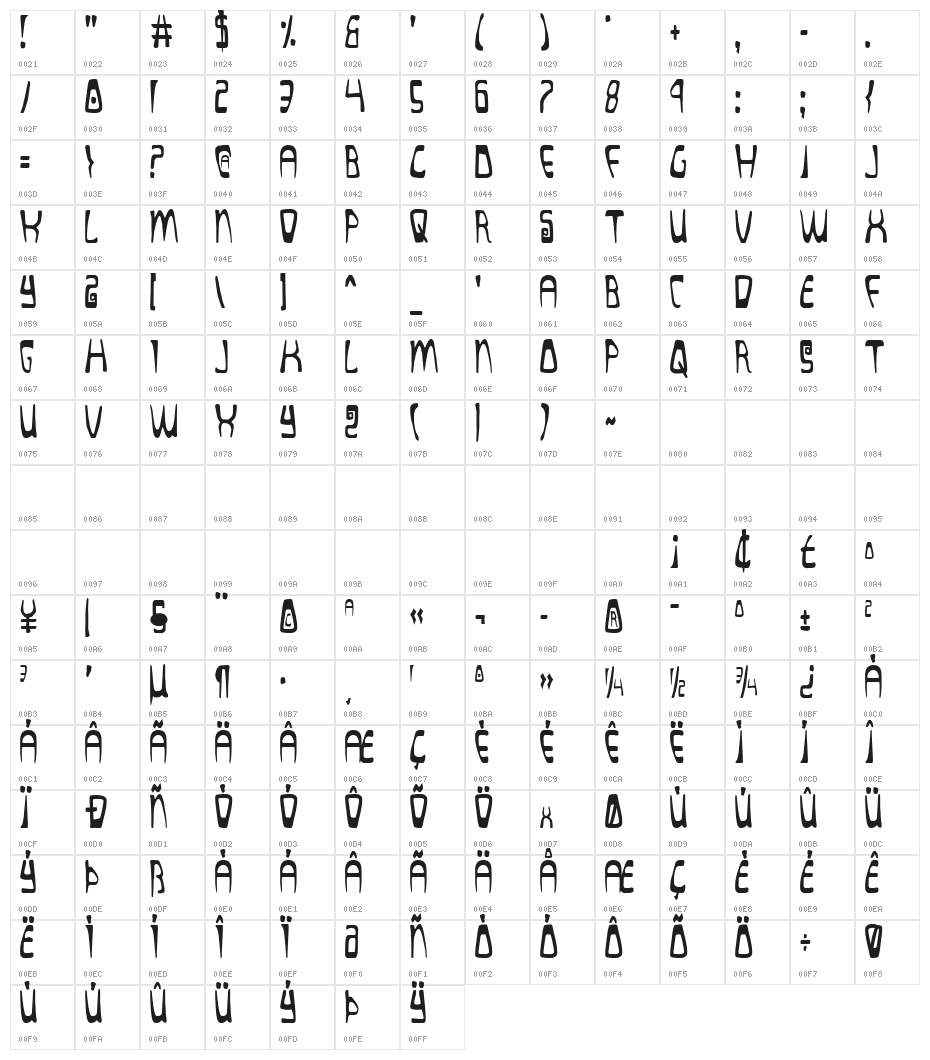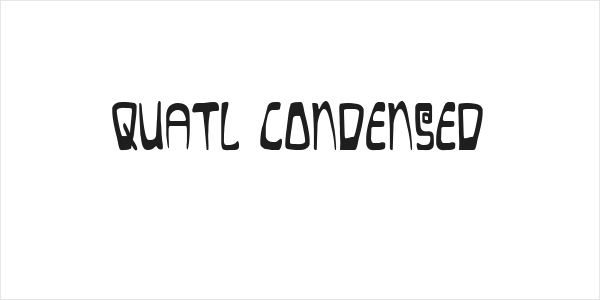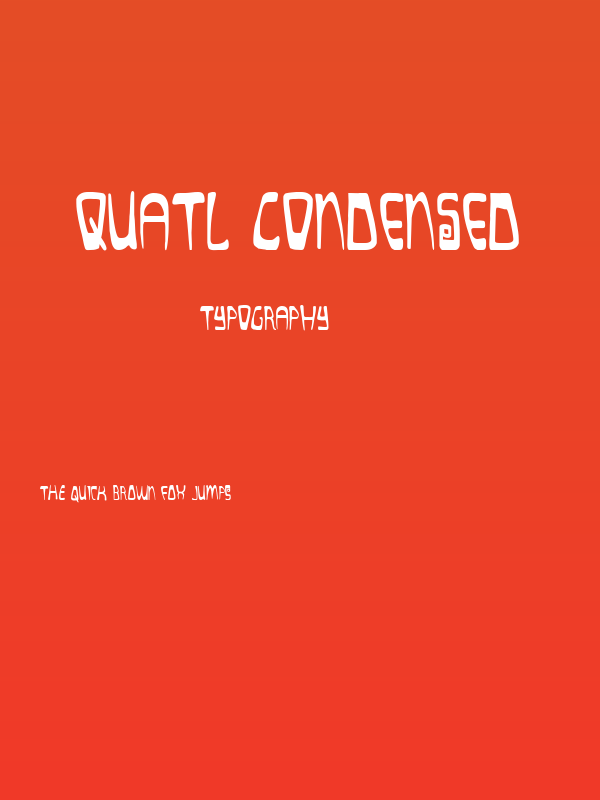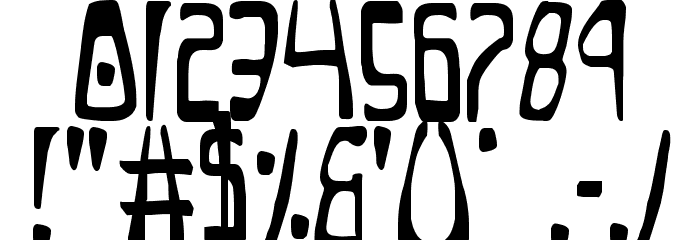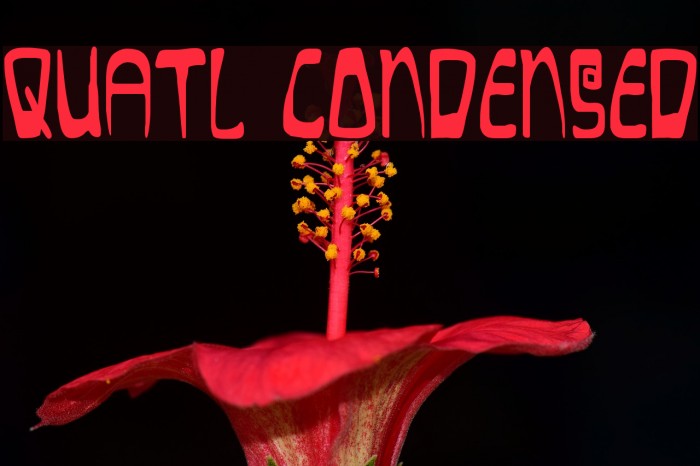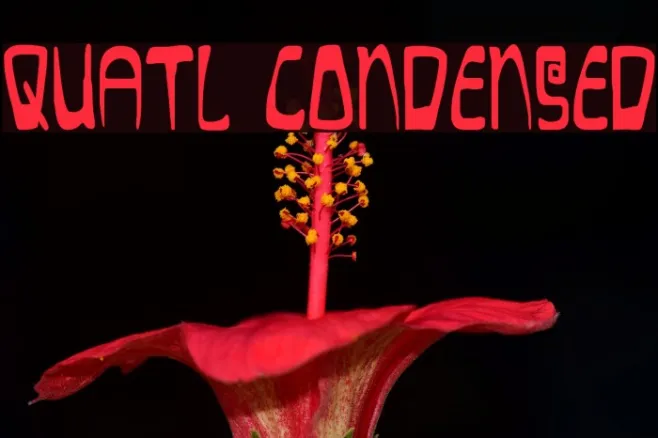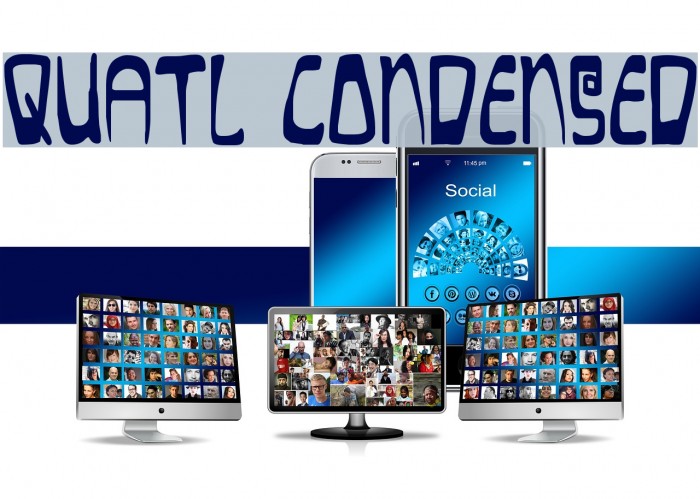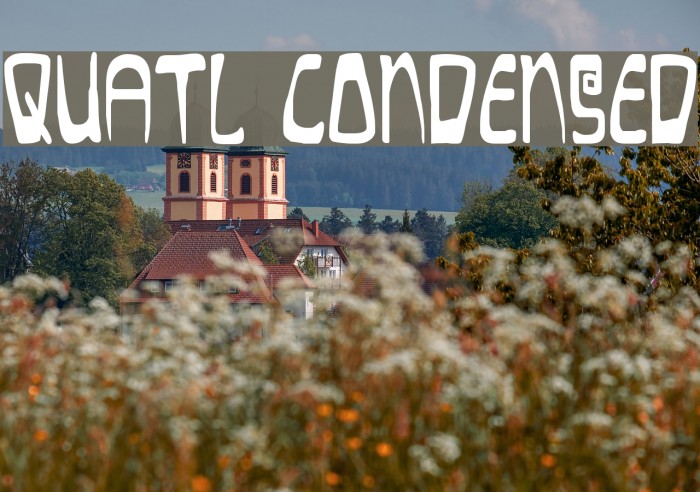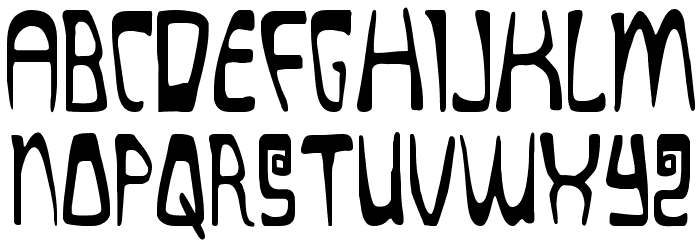
Quatl Condensed Font
Quatl Condensed Description
This font features a unique and artistic style with a condensed structure. The characters are elongated and have a hand-drawn appearance, giving them a whimsical and playful feel. The uppercase and lowercase letters maintain a consistent height, contributing to its uniformity. The numerals and special characters are designed with the same artistic flair, incorporating curves and angles that add to the font's distinctive look. The overall design is bold and eye-catching, making it suitable for creative projects that require a touch of originality.
| Proposed Projects | Ideal for creative projects such as posters, album covers, children's books, and artistic branding. |